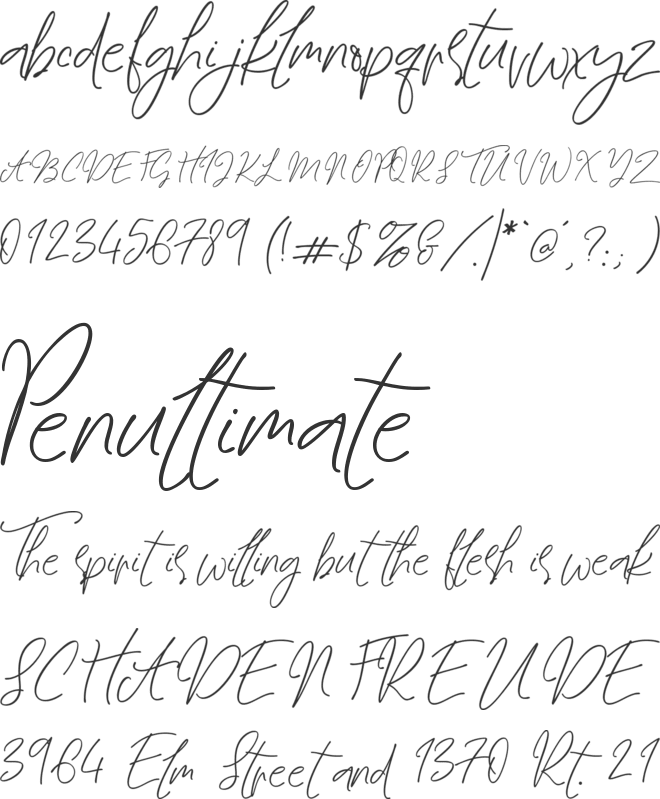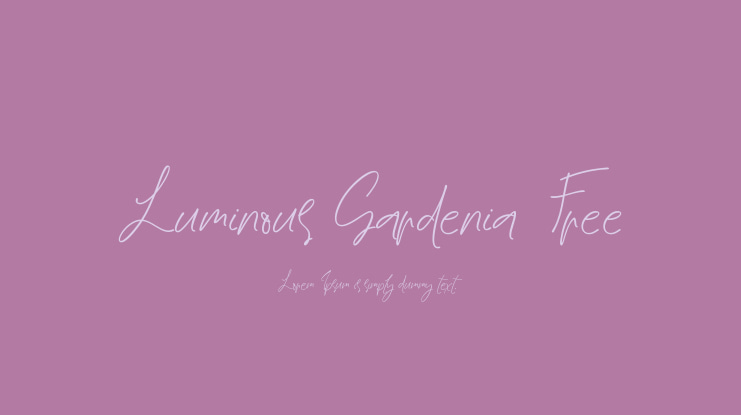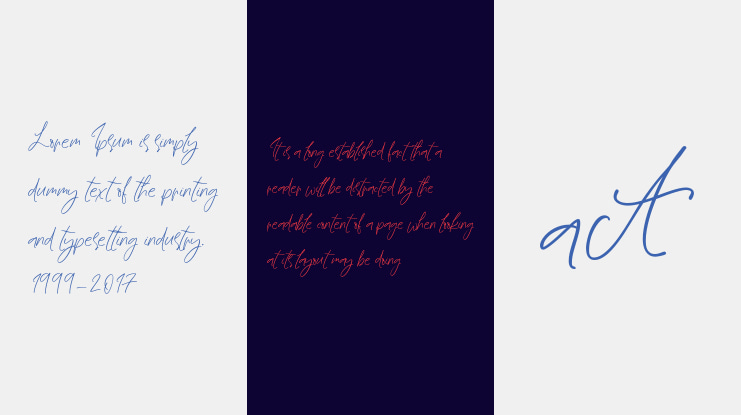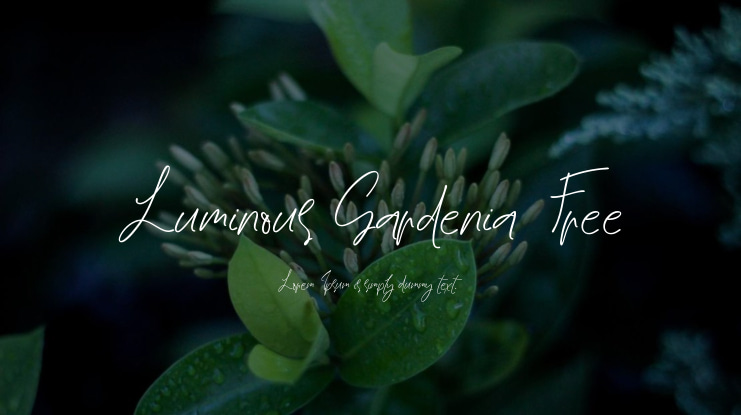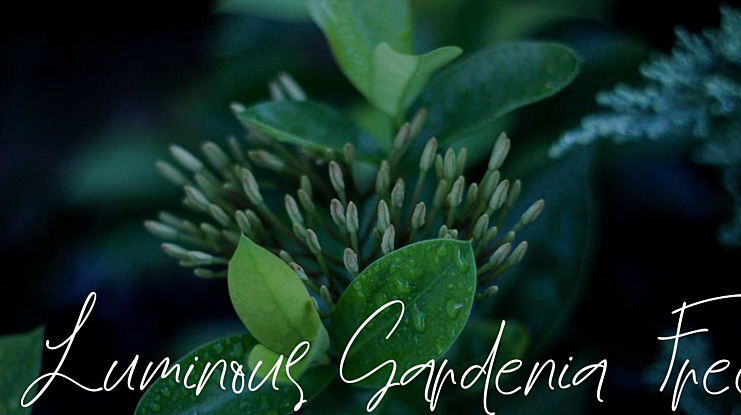
A beautifully flowing handwriting script font that captures the elegance of natural penmanship with a modern touch. Delicate yet expressive, this font radiates charm with its smooth curves and graceful strokes, making it perfect for wedding invitations, branding, social media, and more. Whether you're crafting heartfelt messages or stylish designs, Luminous Gardenia brings a luminous touch of sophistication to every project.